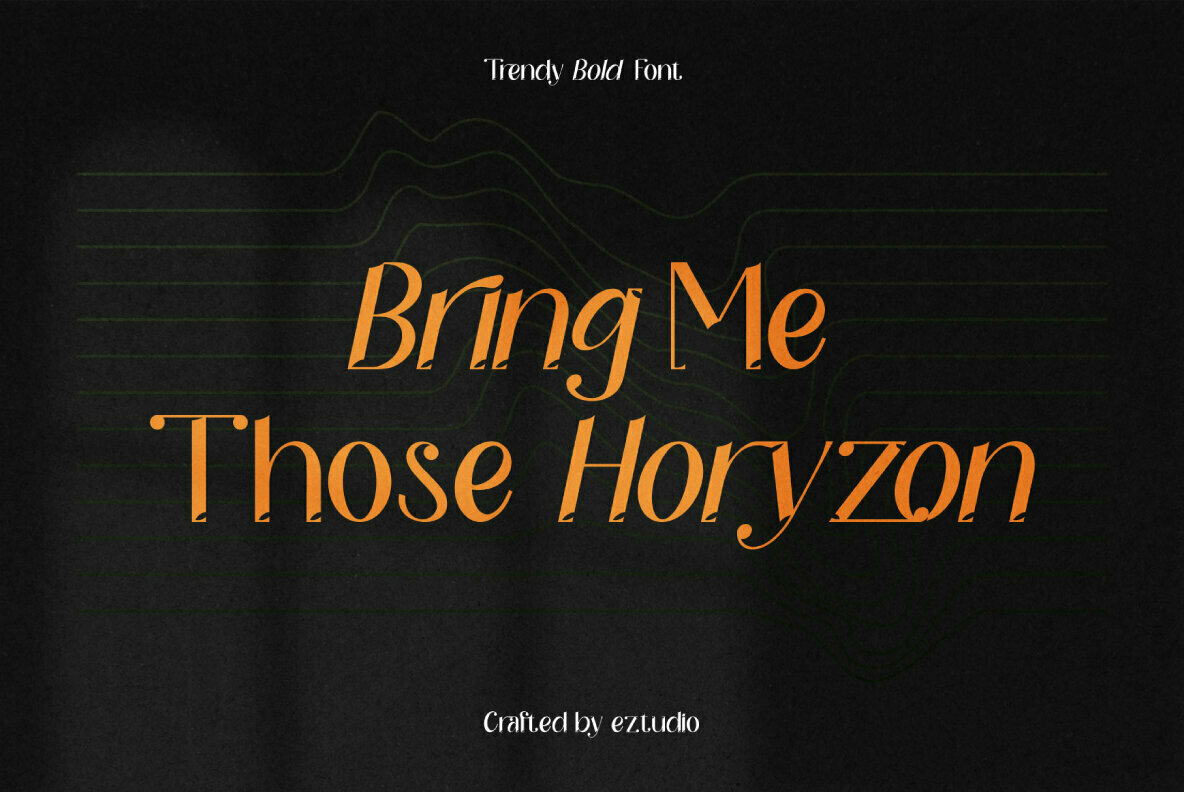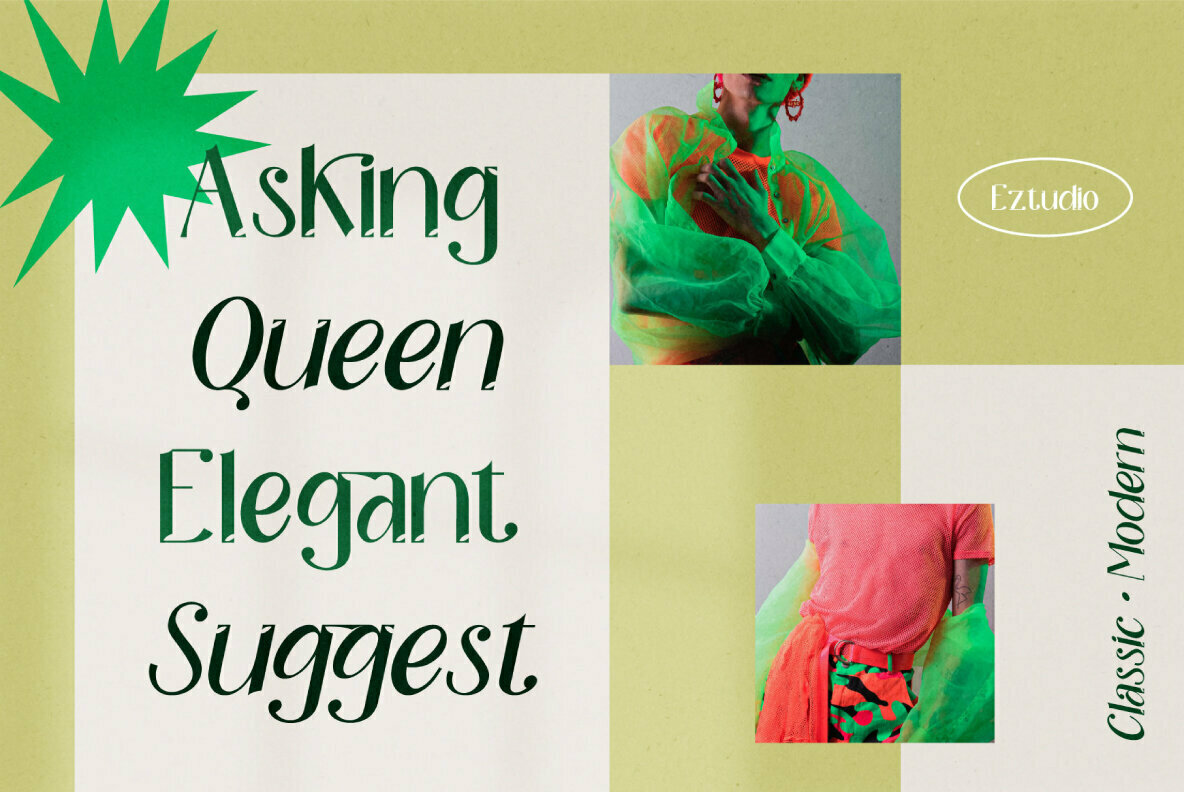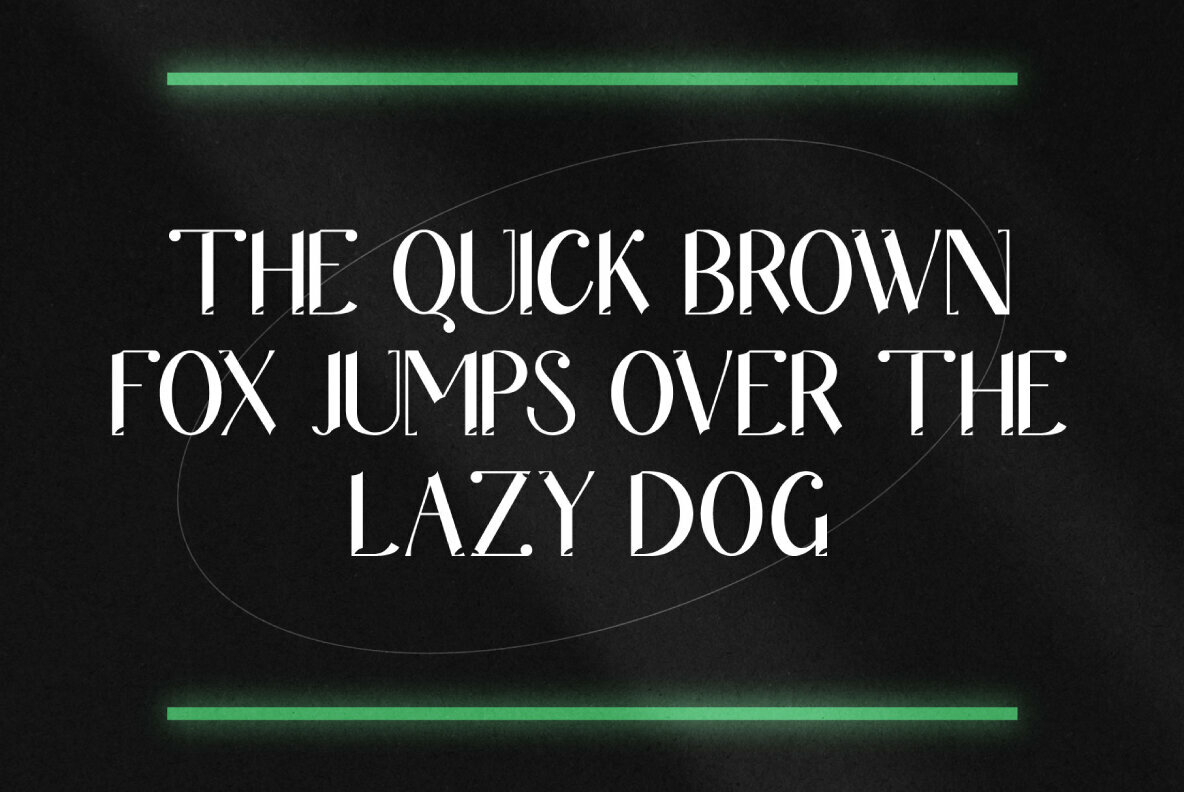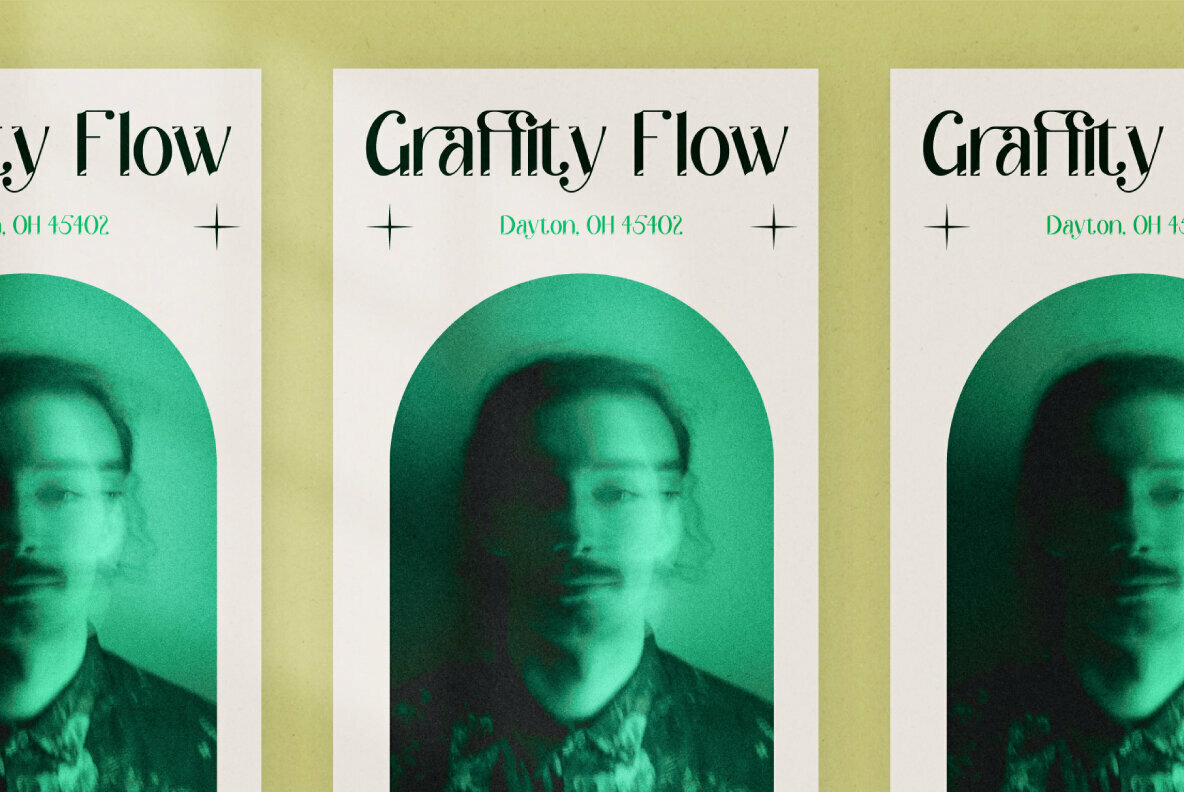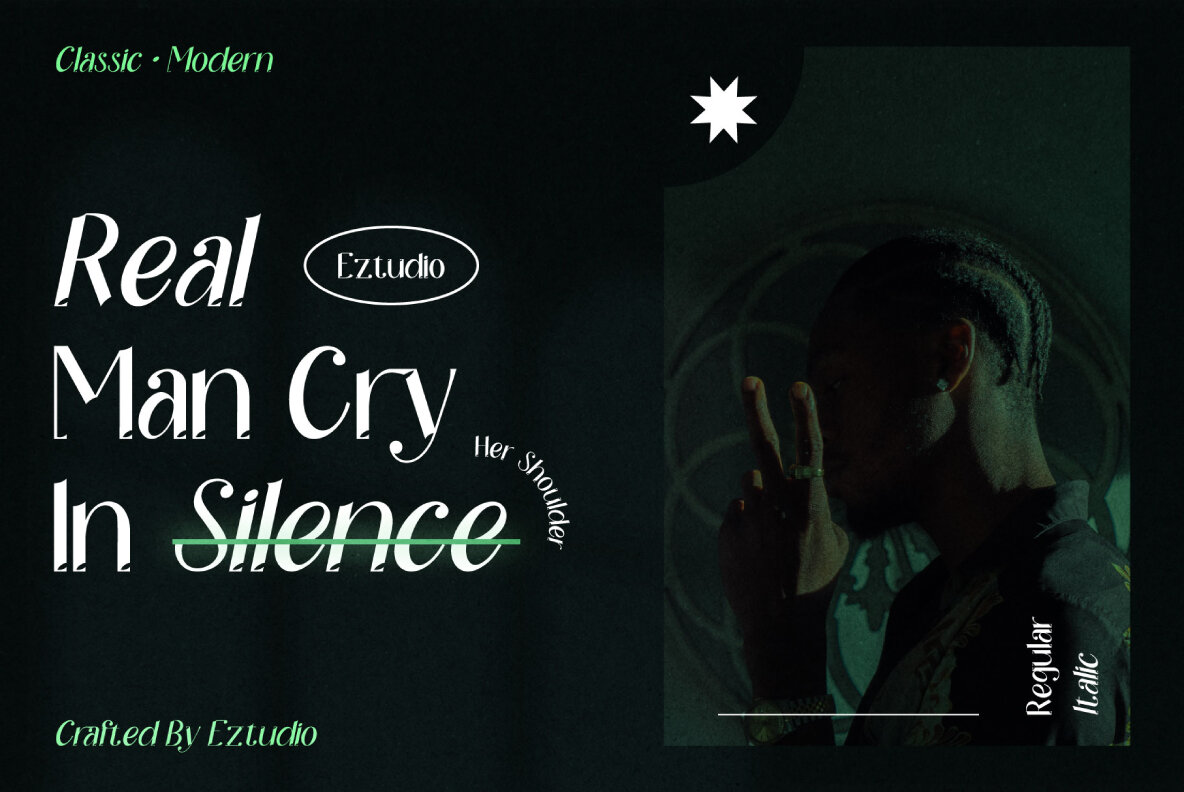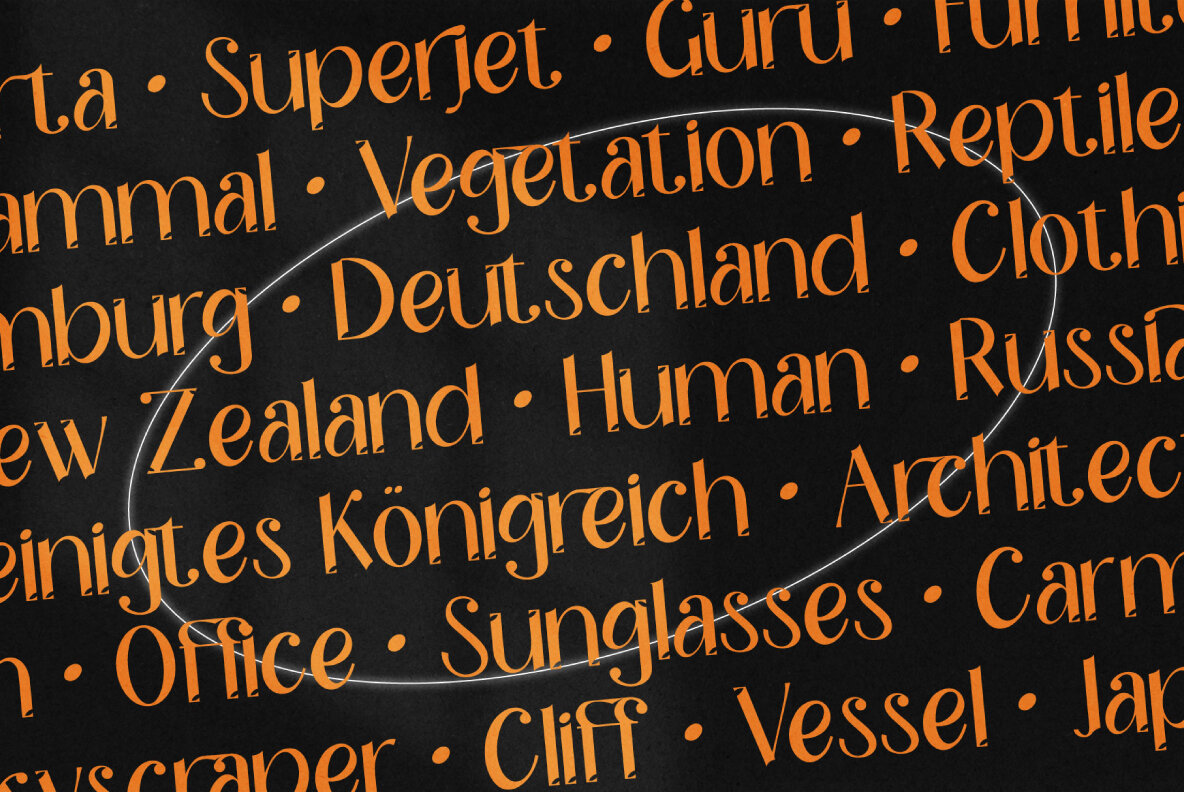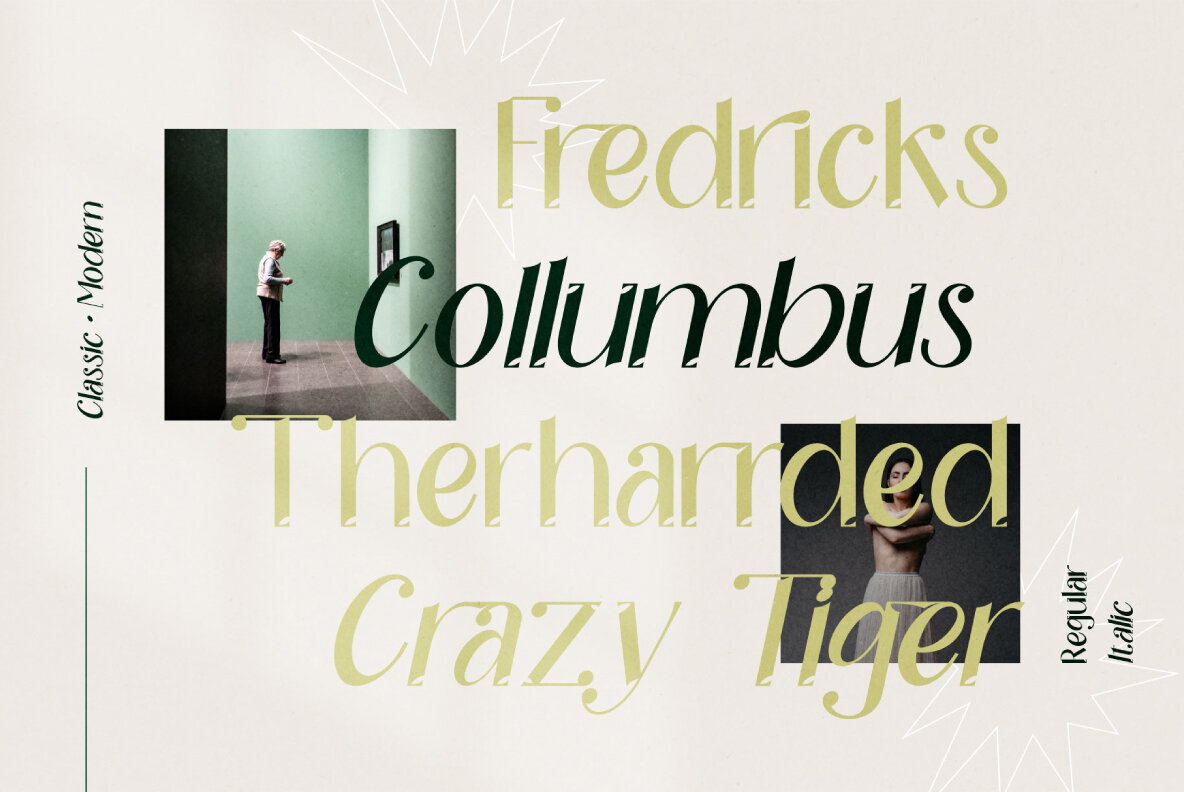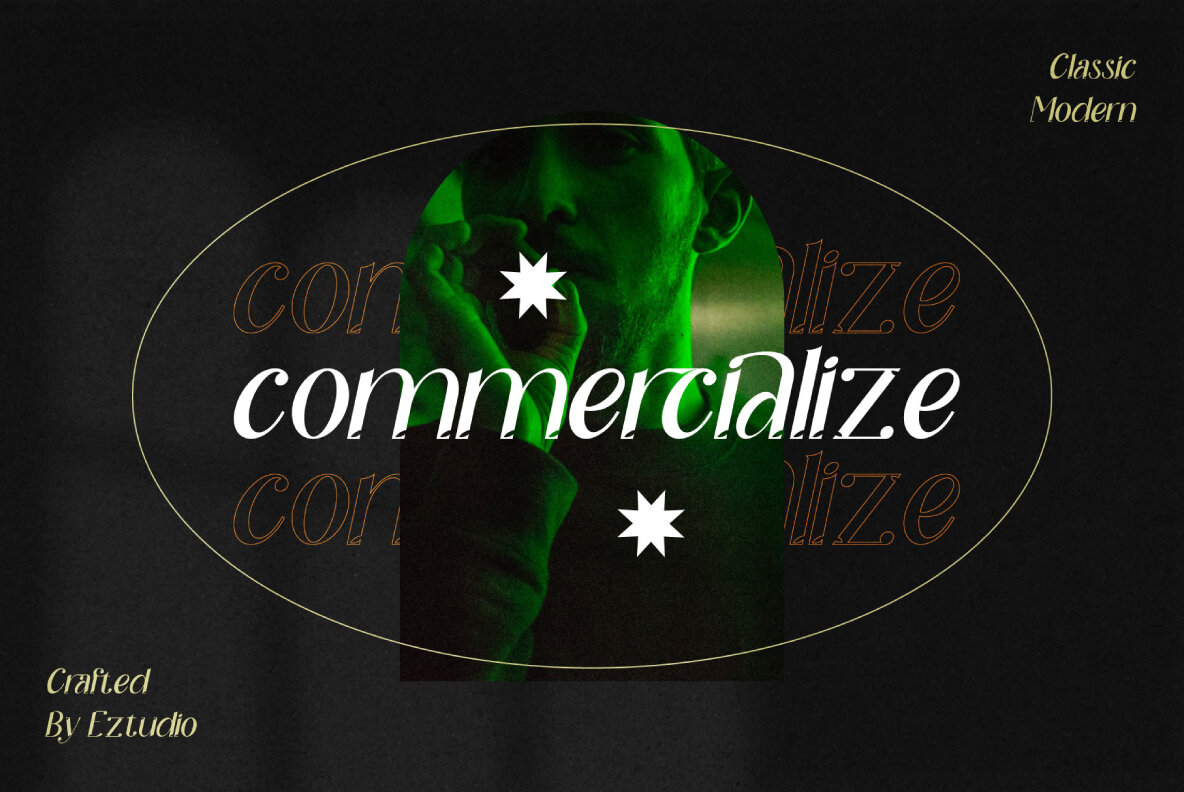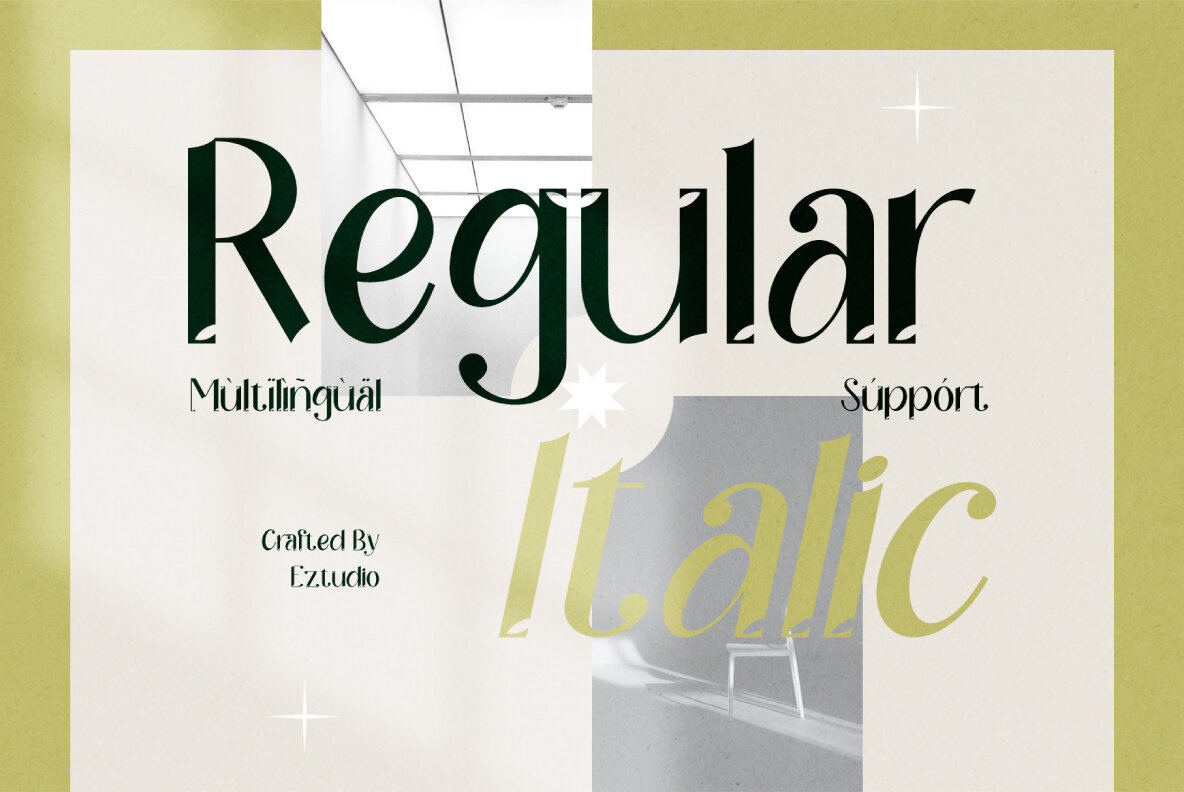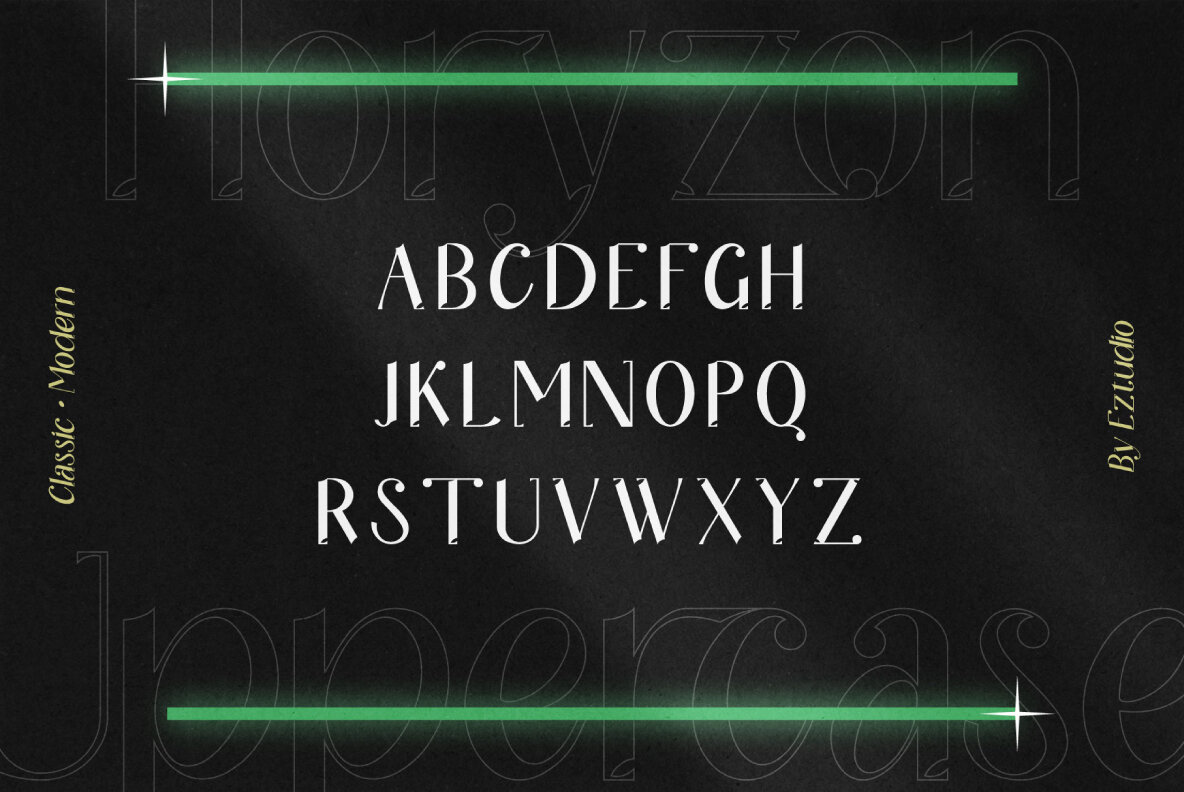
Horyzon Font
Horizon is a modern sans serif font design published by eztudio, this font consists of 2 styles, regular and italic . this font can also be combined with other fonts like serif, script and handwritten. This font is suitable for graphic design needs such as: magazine, poster , branding, apparels, movie headlines etc..